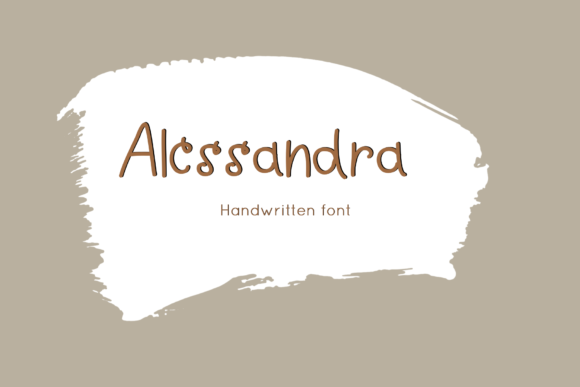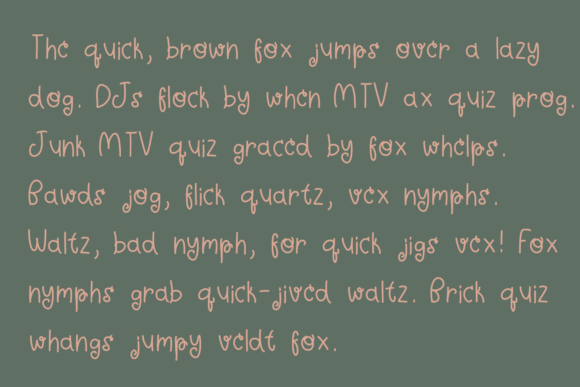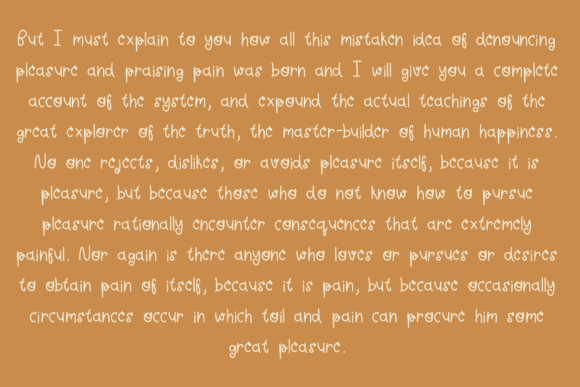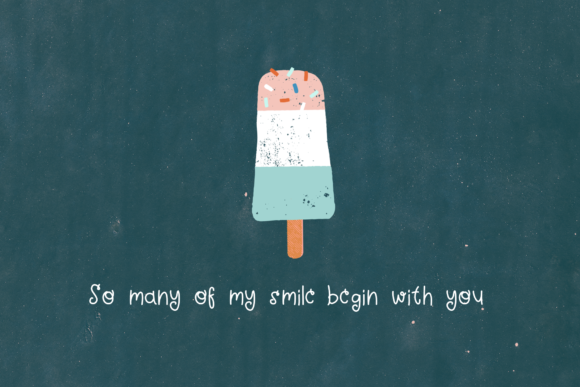
About Alessandra Font
Alessandra is a sweet and friendly handwritten font. Its natural and unique style makes it incredibly fitting to a large pool of designs. The only limit is your imagination!